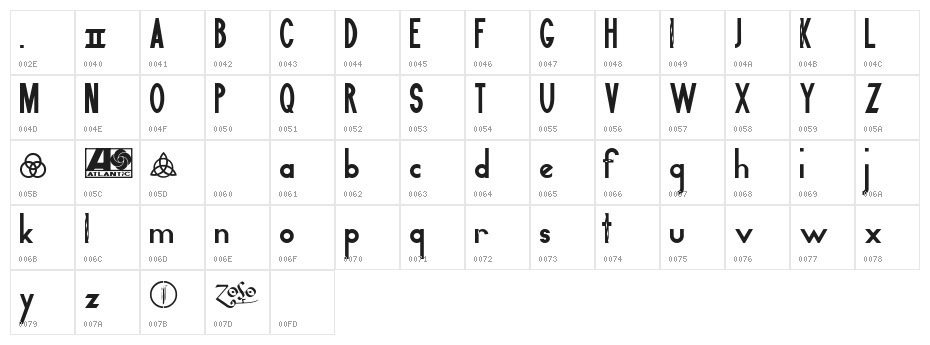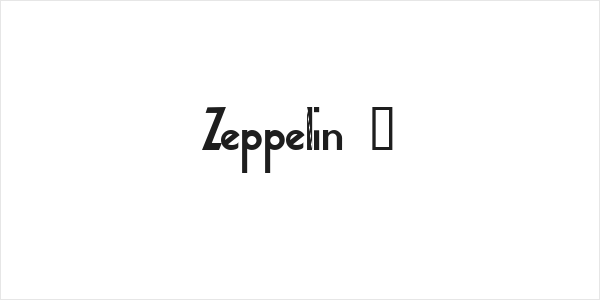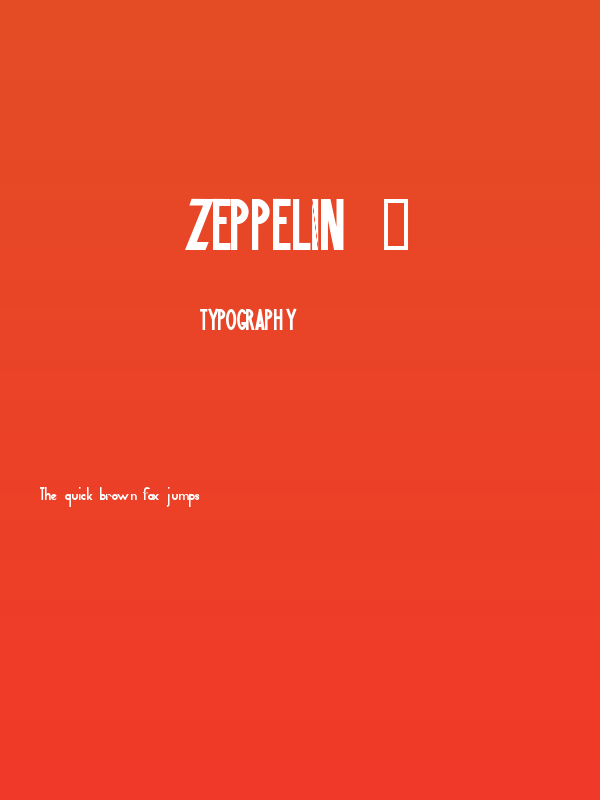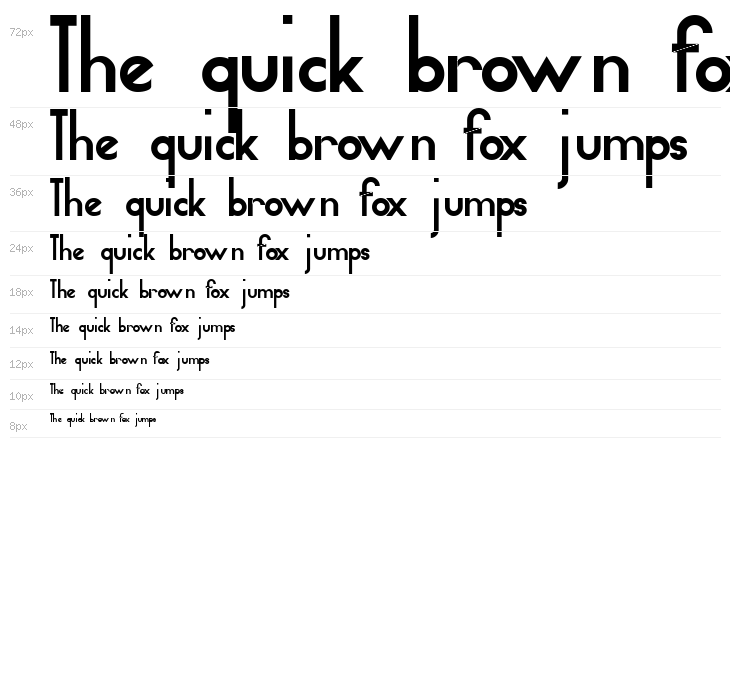
Zeppelin 2 Font
Zeppelin 2 Description
This font features a bold and striking design with a modern flair. The uppercase letters are tall and slightly condensed, giving a sense of strength and authority. The lowercase letters maintain a consistent style, with rounded edges that add a touch of softness to the overall appearance. The numbers are clear and easy to read, matching the boldness of the alphabet. Special characters are designed with the same attention to detail, ensuring they fit seamlessly with the rest of the font. This font's unique style makes it suitable for a variety of creative projects.